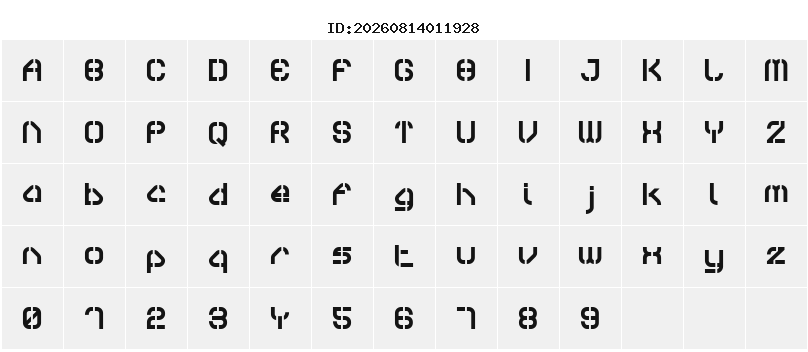
Sylar Stencil Preview
• Font Name: Sylar Stencil
• Full Font Name: Sylar Stencil
• Designer: Jonathan Hill
About Sylar Stencil.ttf
Sylar Stencil.ttf is a modern, elegant sans-serif font designed for ultimate readability and visual harmony. Perfect for branding, headlines, web design, and print materials.